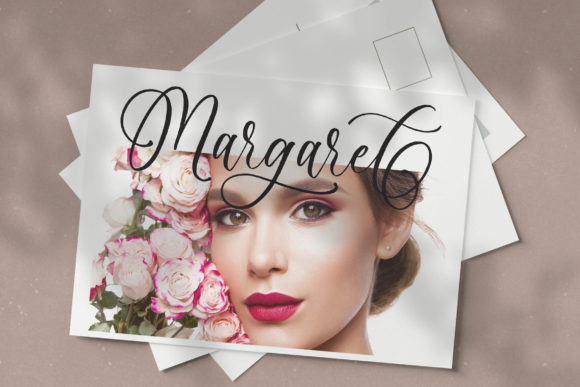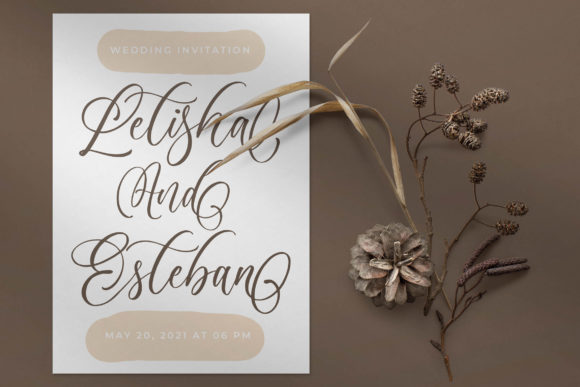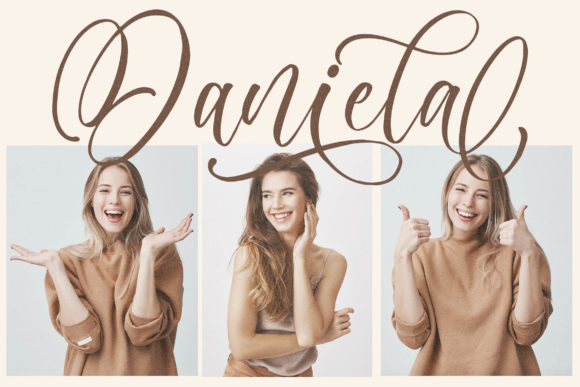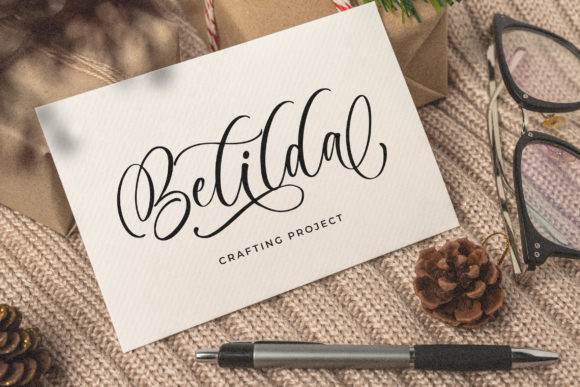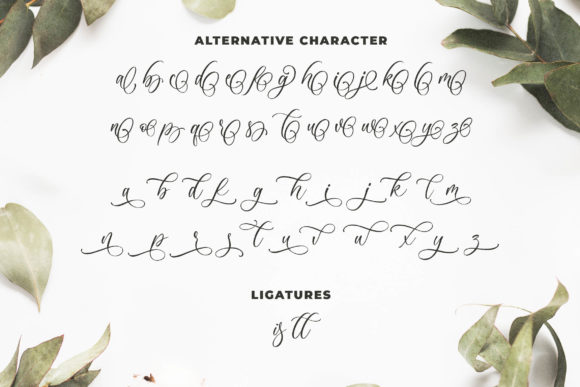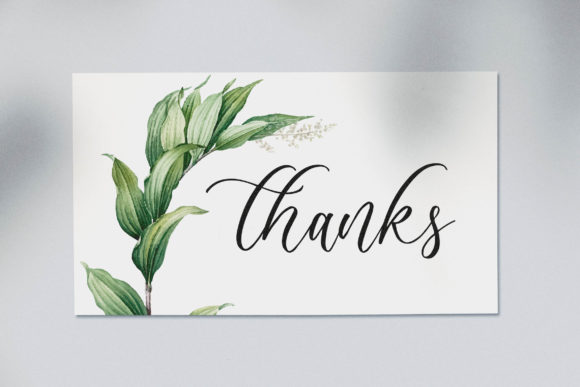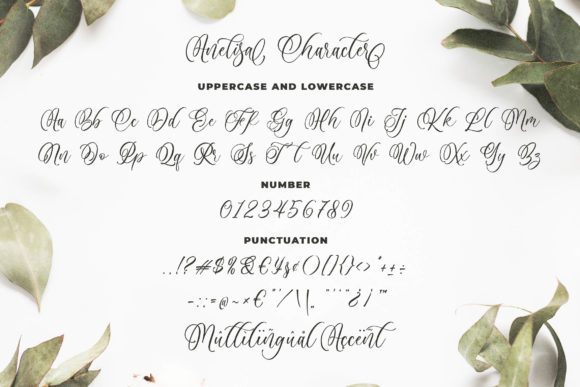
Anelisa Font
About Anelisa Font
Anelisa is a font that exudes delicacy and elegance in its beautiful handwritten style. With its distinct and well-rounded letters, this font truly becomes a masterpiece, capturing attention and adding a touch of sophistication to your designs.
The delicate and elegant handwritten style of Anelisa brings a sense of refinement and grace to your designs. Each letter carries the flowing and artistic touch of handwriting, making your work stand out with a touch of beauty and allure.
With Anelisa as your creative tool, you have the freedom to explore various design ideas. Whether you’re working on wedding invitations, branding materials, quotes, social media graphics, or any other creative project, Anelisa adapts effortlessly to bring a sense of versatility and elegance to your work.
Embrace the distinct and well-rounded letters of Anelisa and witness how it transforms your designs into spectacular works of art. Its unique and elegant style adds a touch of sophistication, making your designs truly captivating and mesmerizing.
With PUA encoding, Anelisa empowers you to access all the glyphs and swashes with ease, providing you with a plethora of creative possibilities. Customize and personalize your designs effortlessly, allowing your creativity to flourish without limitations.
Discover the joy of creating with Anelisa as your trusted companion. Let its delicate and elegant appearance be the key to unlocking your creativity and infusing your work with a sense of beauty and allure.
Whether you’re designing for personal projects or professional endeavors, Anelisa is the font that adds that extra touch of flair and sophistication to your creations. Embrace the versatility of Anelisa and witness how it enhances the appeal and impact of your designs, making them truly special and unforgettable.
Let Anelisa be the font that sparks your inspiration and brings a touch of delicacy and elegance to your designs. Experience the magic of Anelisa and witness how it elevates your creative projects, making them truly spectacular and filled with a sense of beauty and grace that captivates and inspires.